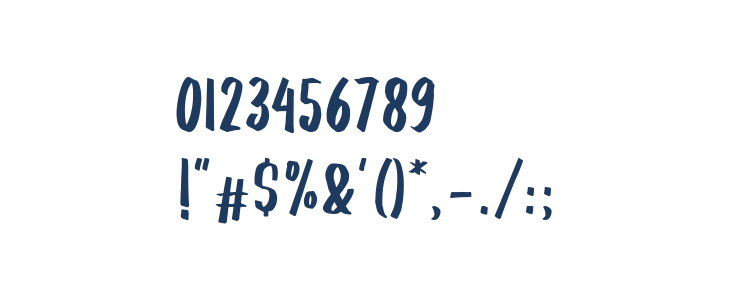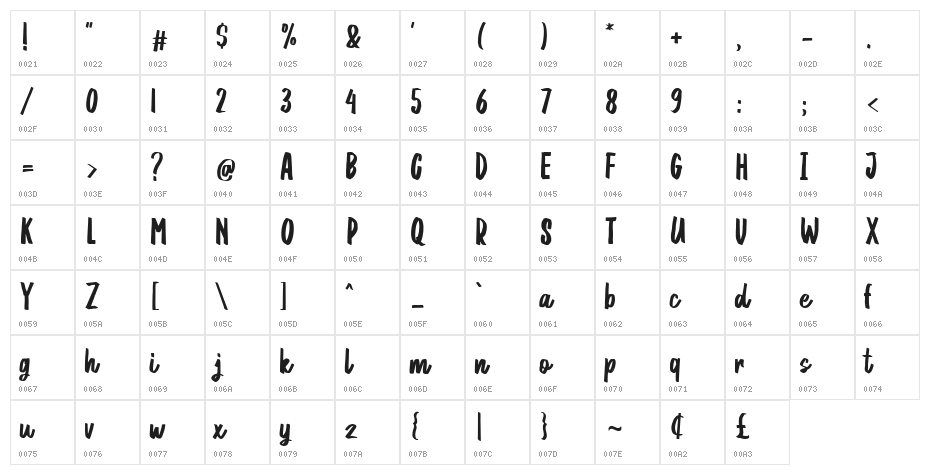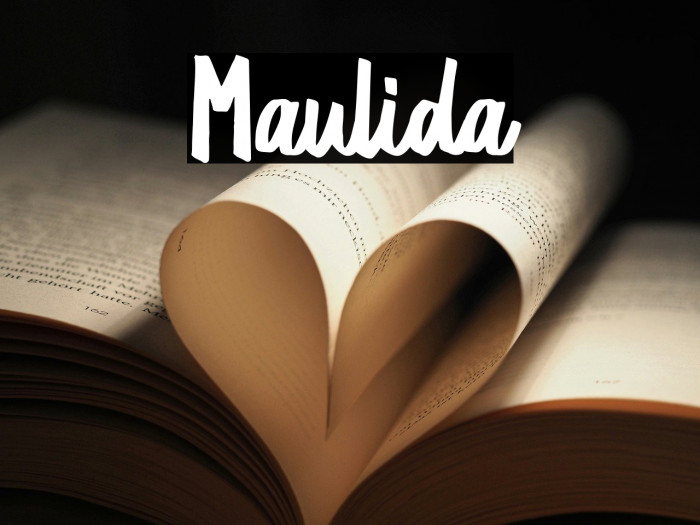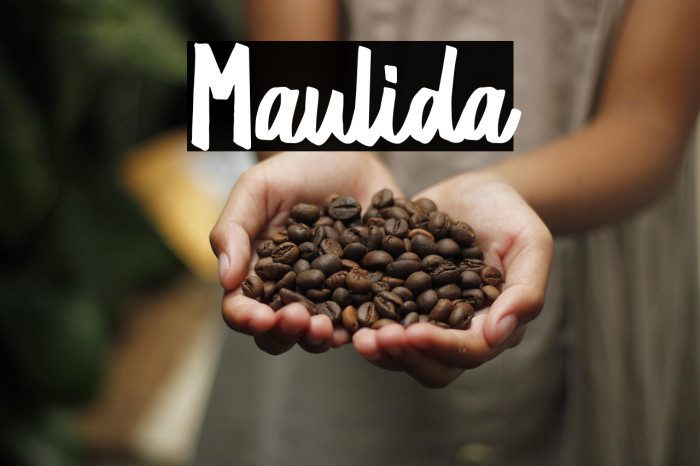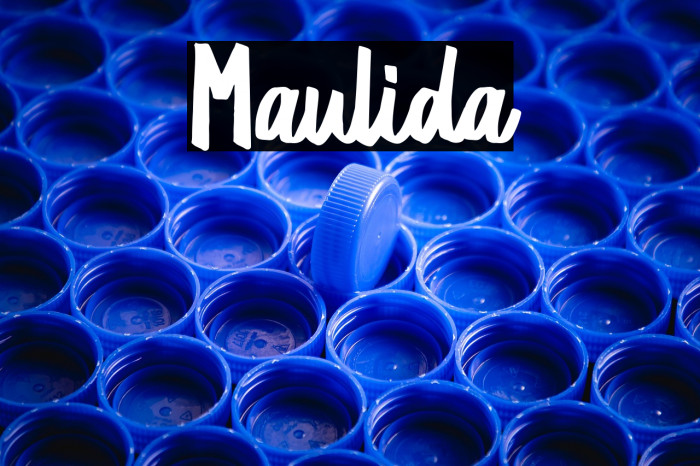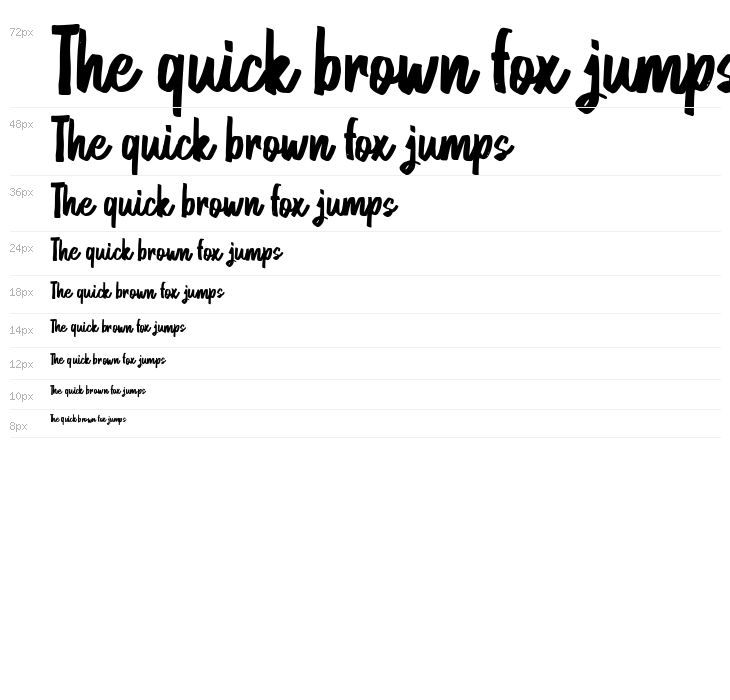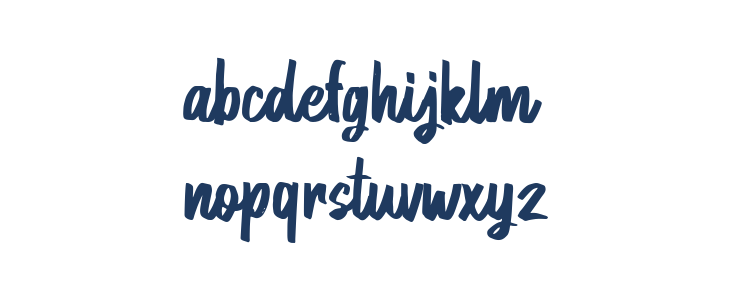
Maulida Font
Maulida Description
This font features a bold and expressive style with a hand-drawn appearance. The uppercase letters are tall and slightly condensed, with a playful and dynamic feel. The lowercase letters maintain the same energetic style, with some characters having unique flourishes that add to the font's charm. The numerals are consistent with the overall aesthetic, offering a bold and clear presentation. Special characters are creatively designed, maintaining the font's lively and artistic vibe. This font is perfect for projects that require a personal and informal touch, making it ideal for creative and artistic endeavors.
| Proposed Projects | Ideal for posters, invitations, branding, and creative projects that require a personal touch. |